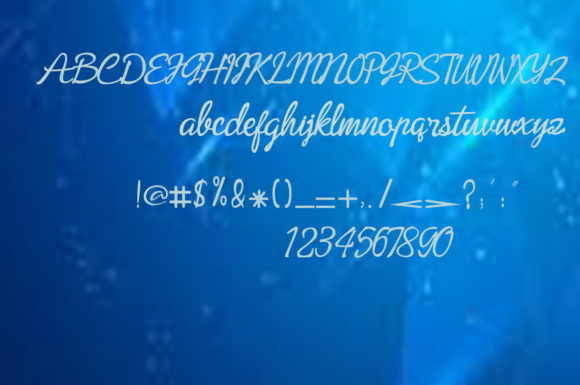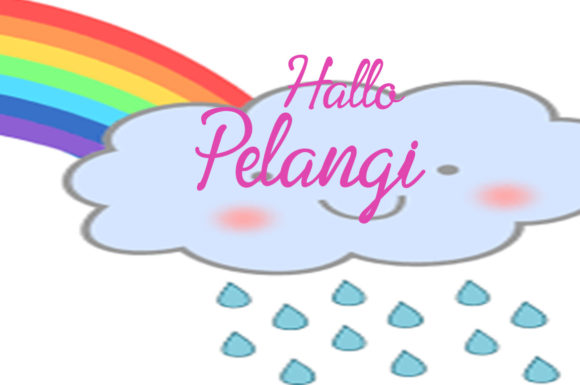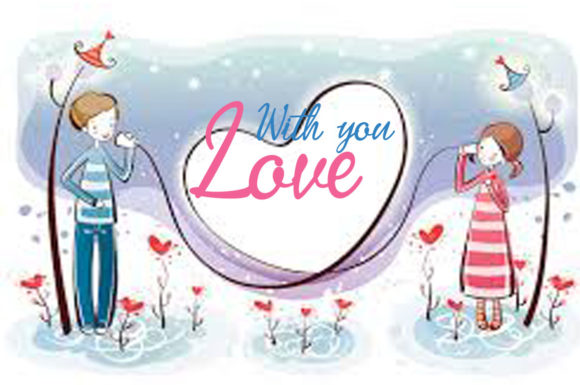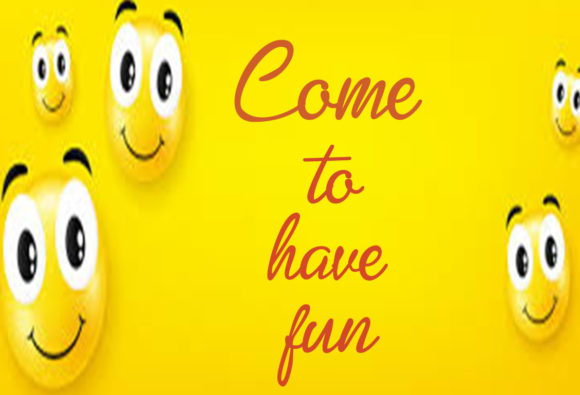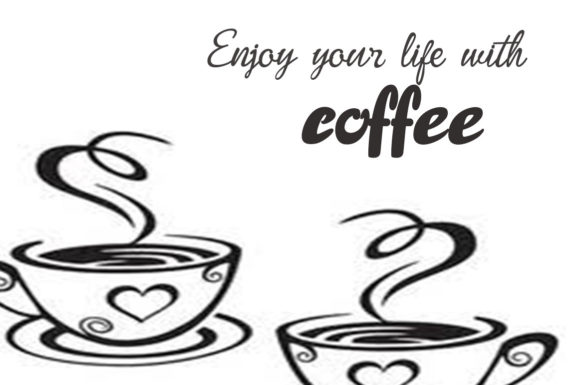
Discover the Delight of Angeline Font
Have you ever sat at your desk, surrounded by scattered papers, paint swatches, and half-finished designs, feeling completely uninspired? It’s a moment we’ve all been there, staring blankly at a blank canvas, waiting for that spark of creativity to strike. For designers, it’s those magical moments that make all the hard work worth it.
That’s where Angeline Font comes in – a sweet and delicate handwritten font that’s perfect for adding a touch of romance and whimsy to your designs. Whether you’re crafting wedding invitations, cards, or any other project that needs a personal touch, Angeline Font is the perfect addition. Its dainty and joyful style makes it an invaluable asset for designers looking to add a little extra magic to their work.
Angeline Font Key Features
- Font Family: Angeline, Angeline Italic, Angeline Bold, Angeline Bold Italic
- Unique Characteristics: Elegant, cursive script with a touch of sophistication; suitable for invitations, greeting cards, and other creative projects
- Language Support: Multilingual support, including Latin, Cyrillic, and Greek alphabets
Angeline Font Review
Angeline Font is a lovely script font that caught my eye. I’ve had the chance to work with it, and here are my honest thoughts.
- Playful and elegant, making it perfect for creative projects
- Beautiful connections between letters, giving it a natural feel
- Extensive language support, making it suitable for international projects
- Not ideal for large block of texts, as it can become overwhelming
- Might be too cursive for some audiences, potentially leading to readability issues
- No significant bold or italic styles to complement the regular font
Overall, Angeline Font is a solid choice for designers looking for a unique, elegant script font. While it has some limitations, it shines in its ability to add a touch of personality to projects. If you’re looking for a font to make a statement, Angeline is definitely worth considering.
Tips for Getting the Most Out of Angeline Font
Here are some tips to help you get the most out of the Angeline font:
- Use Angeline font for titles and headings to add a touch of elegance.
- Combine Angeline font with other fonts for a unique and visually appealing design.
- Experiment with different font sizes and styles to create a balanced design.
The Angeline font is suitable for various design projects, including:
Alternatives to “Angeline Font” for Designers
Great Vibes is a beautiful, elegant script font perfect for creating a luxurious and sophisticated feel in your designs. It’s ideal for use in wedding invitations, branding, and other high-end projects. Great Vibes has a more refined and polished look compared to Angeline Font, making it a great choice for projects that require a touch of sophistication.
Carolyna Pro is a modern and elegant script font that’s perfect for creating a unique and eye-catching look in your designs. It’s ideal for use in fashion, beauty, and lifestyle branding, as well as in editorial and advertising projects. Carolyna Pro has a more modern and edgy feel compared to Angeline Font, making it a great choice for projects that require a bold and trendy look.
Playfair Display is a luxurious and elegant serif font that’s perfect for creating a sophisticated and high-end feel in your designs. It’s ideal for use in branding, advertising, and editorial projects, as well as in wedding invitations and other special occasion materials. Playfair Display has a more formal and classic look compared to Angeline Font, making it a great choice for projects that require a touch of elegance and sophistication.
Ostrich Sans is a modern and playful sans-serif font that’s perfect for creating a fun and energetic feel in your designs. It’s ideal for use in branding, advertising, and editorial projects, as well as in social media and digital marketing materials. Ostrich Sans has a more casual and laid-back feel compared to Angeline Font, making it a great choice for projects that require a fun and approachable look.